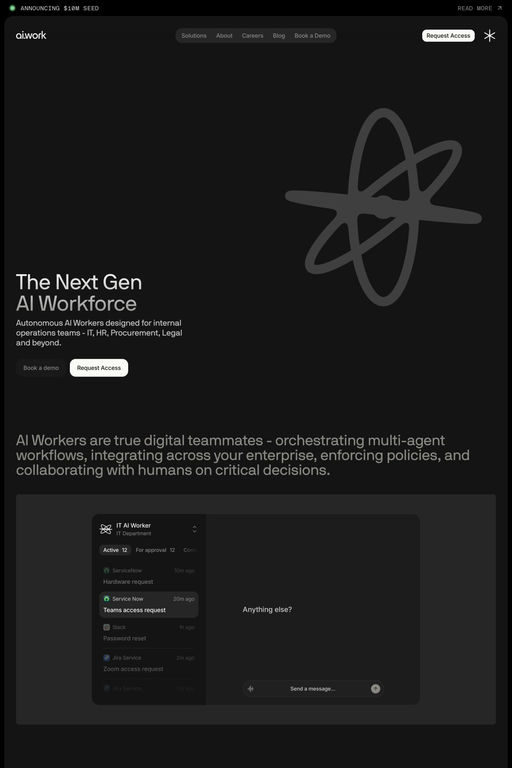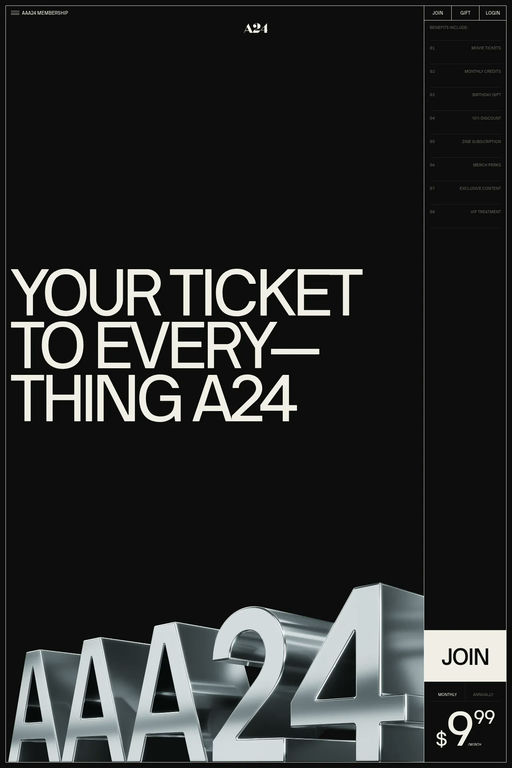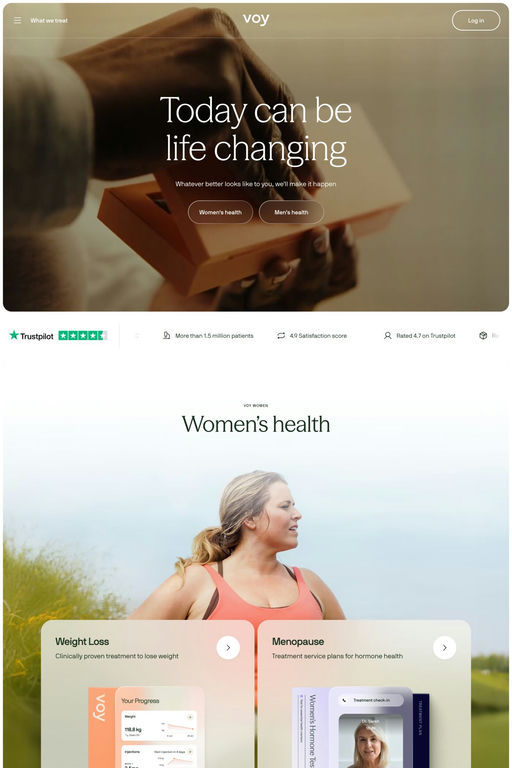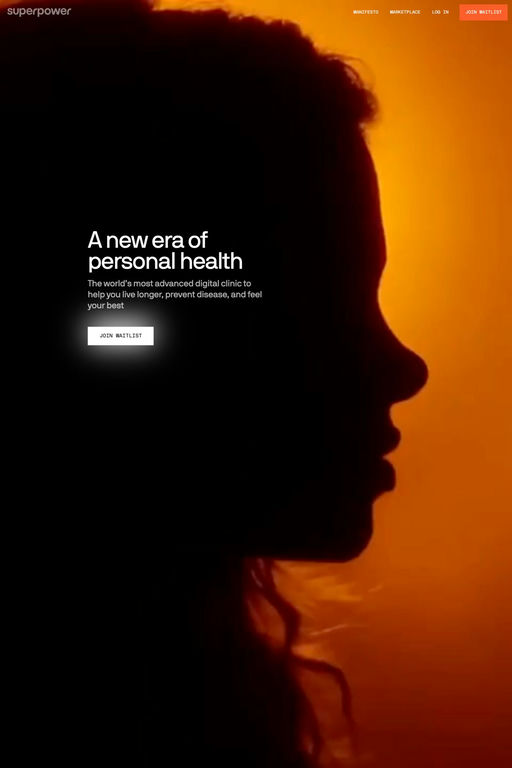
NB International is a sans-serif typeface from Neubau.
Originally released in 2014 with Neubau Forst Catalogue, NB International™ pays tribute to popular Grotesk typefaces of the ‘international style’ era. With a focus to detail and reference to traditional letterpress printing, each glyph was designed with precise five units radius corners. The result is a softedged and warm characteristics that translates beautifully both in print and on screen.
A1 features 4 websites using NB International, including AAA24, Voy, and ai.work. They lean towards Dark, Video, and 3D design styles, and they’re most often built with Webflow and Framer.